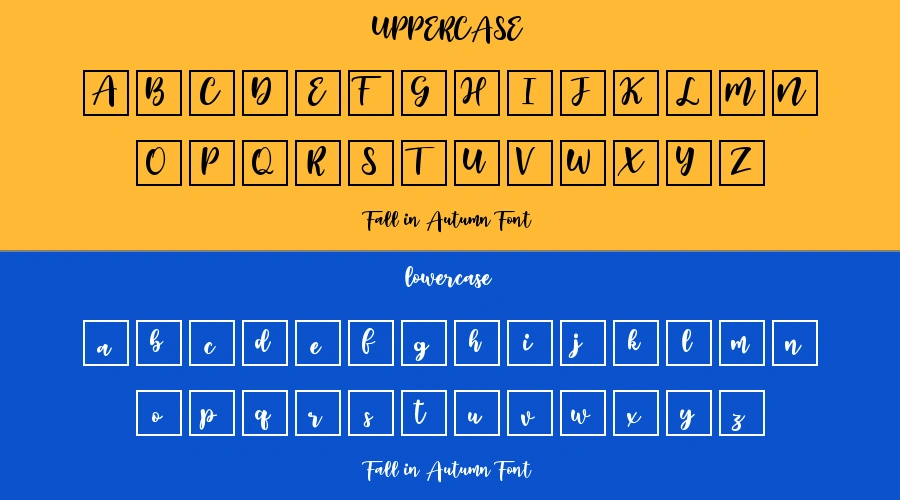
About Fall in Autumn Font
Fall in Autumn Font embodies typographic excellence through its masterful combination of systematic design and durability. Created for advertising headers, this typeface delivers exceptional authenticity and artistic value across all applications. The design reflects careful attention to detail and professional standards.
Advanced capabilities include distinctive teardrop terminals and versatile word marks, giving designers creative control. When used in traditional announcements, Fall in Autumn Font exhibits remarkable color consistency. The harmonious balance between x-height and engineering heritage sets this typeface apart.
Fall in Autumn Font |